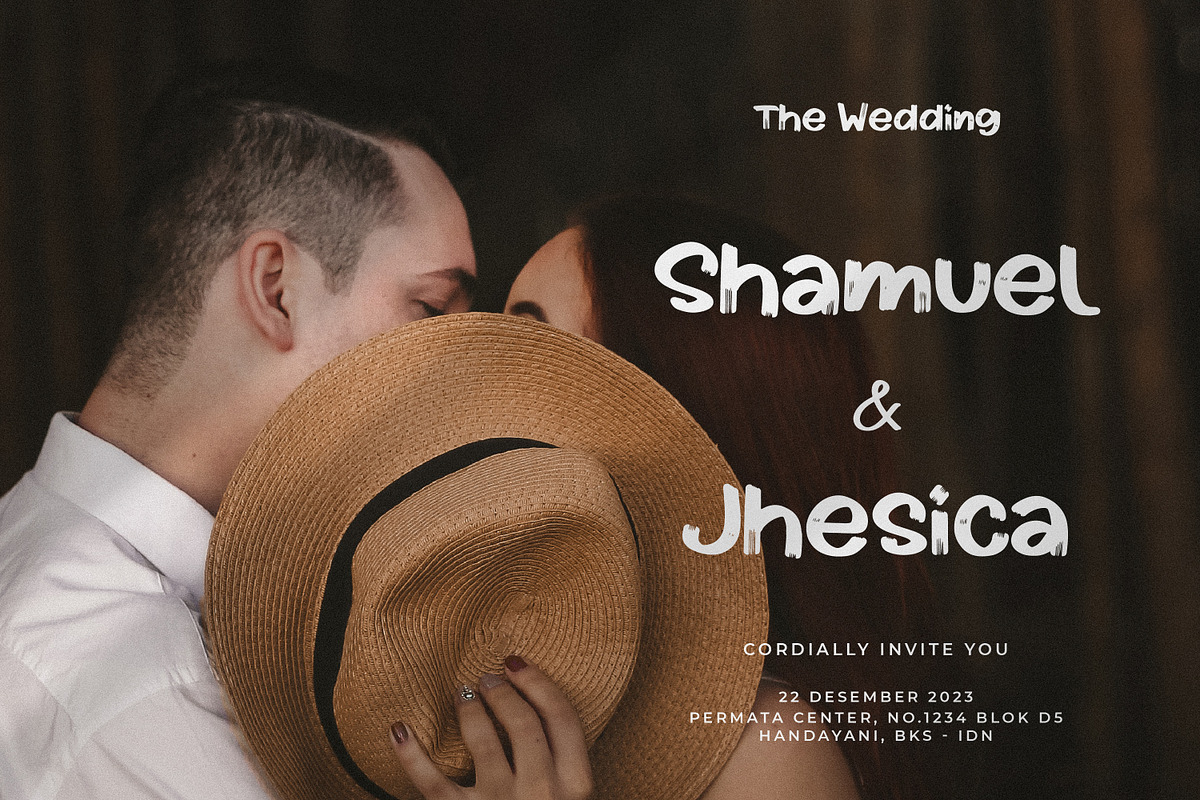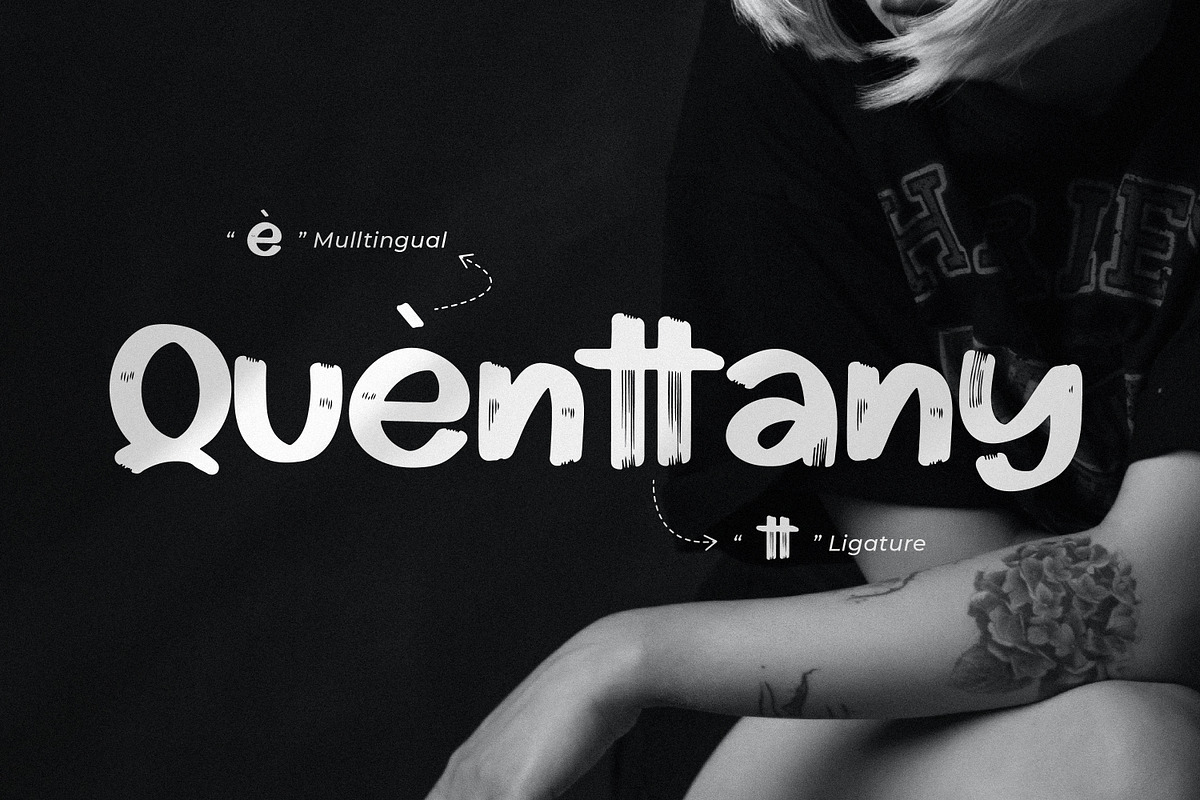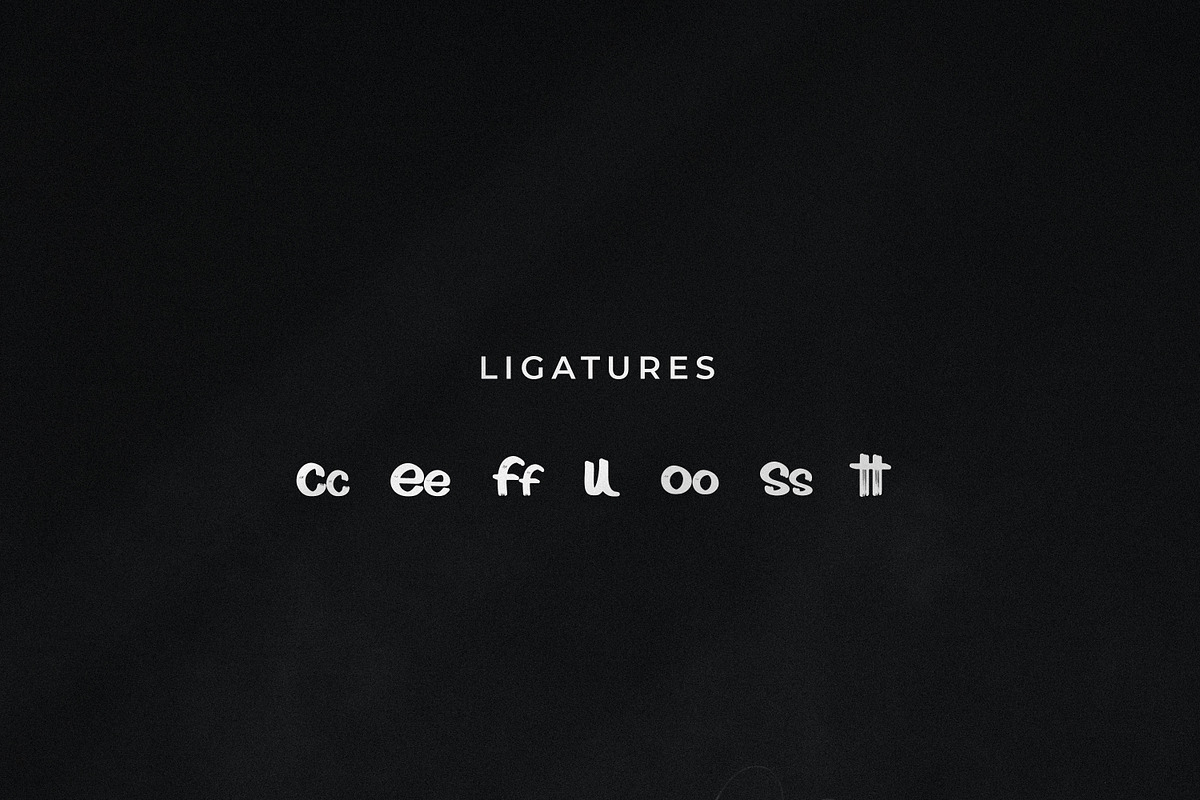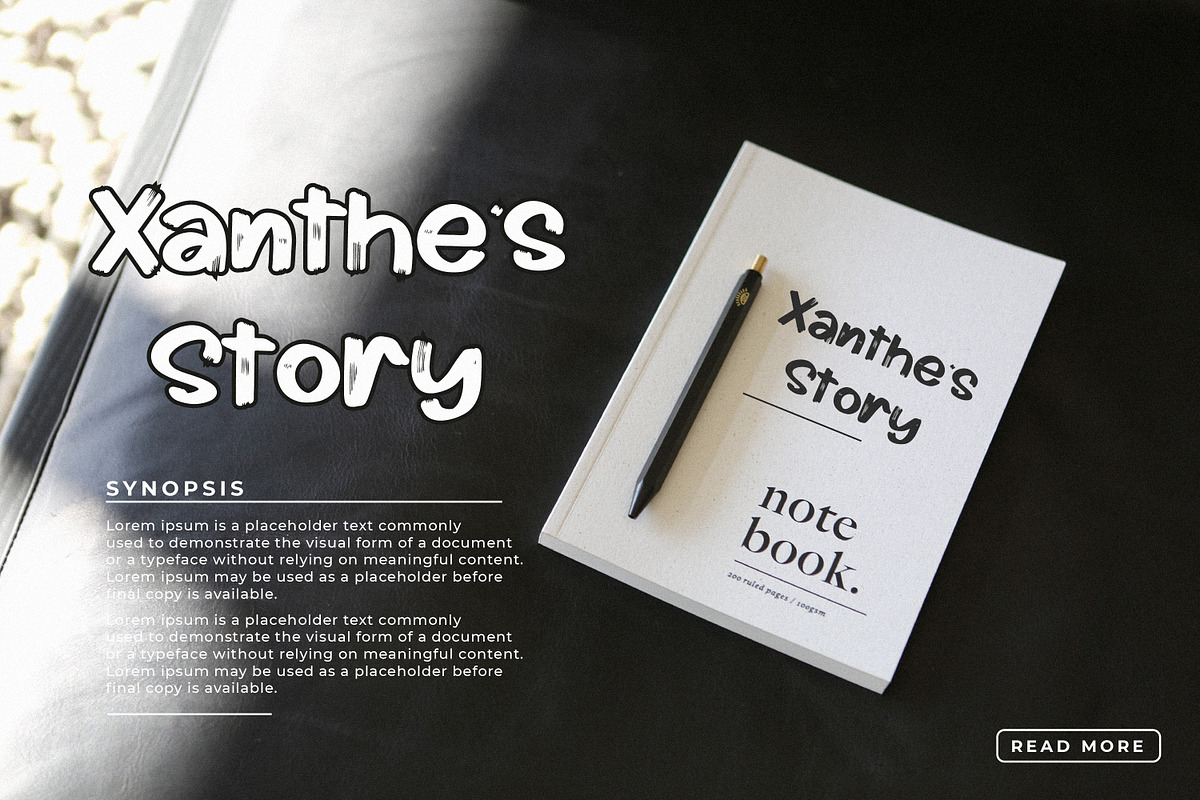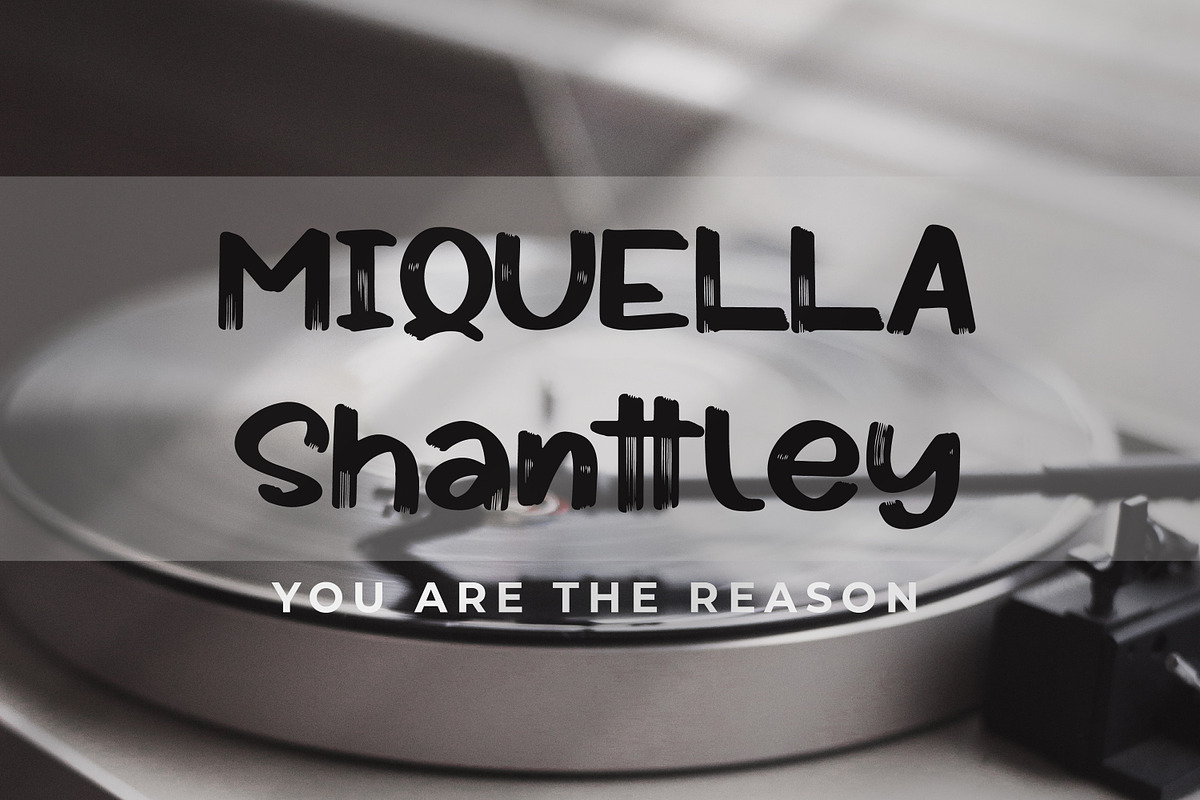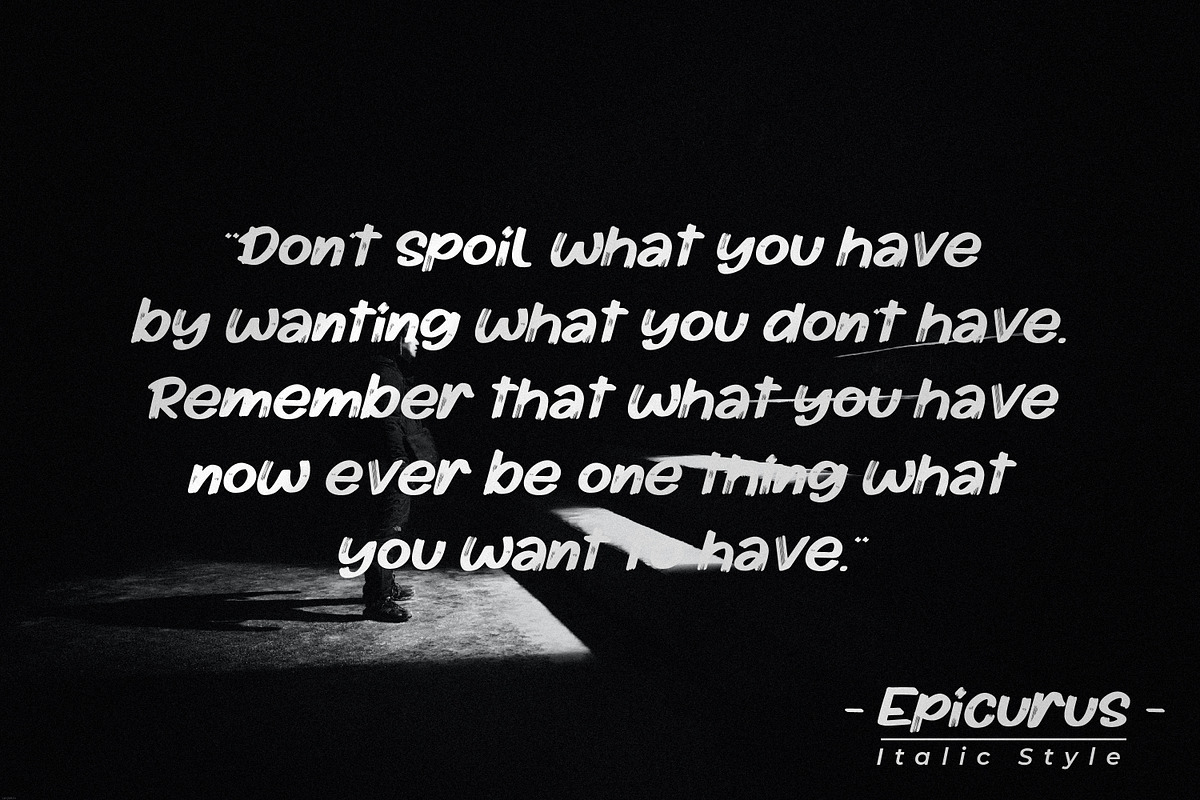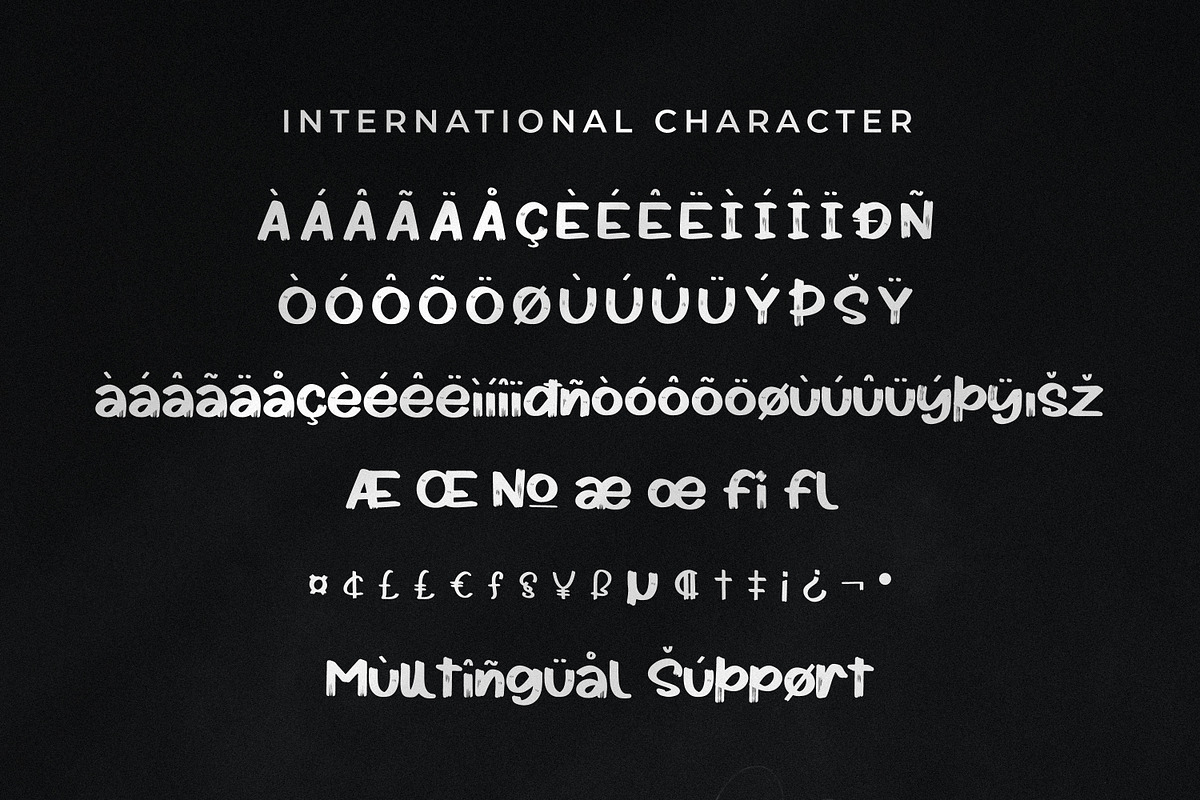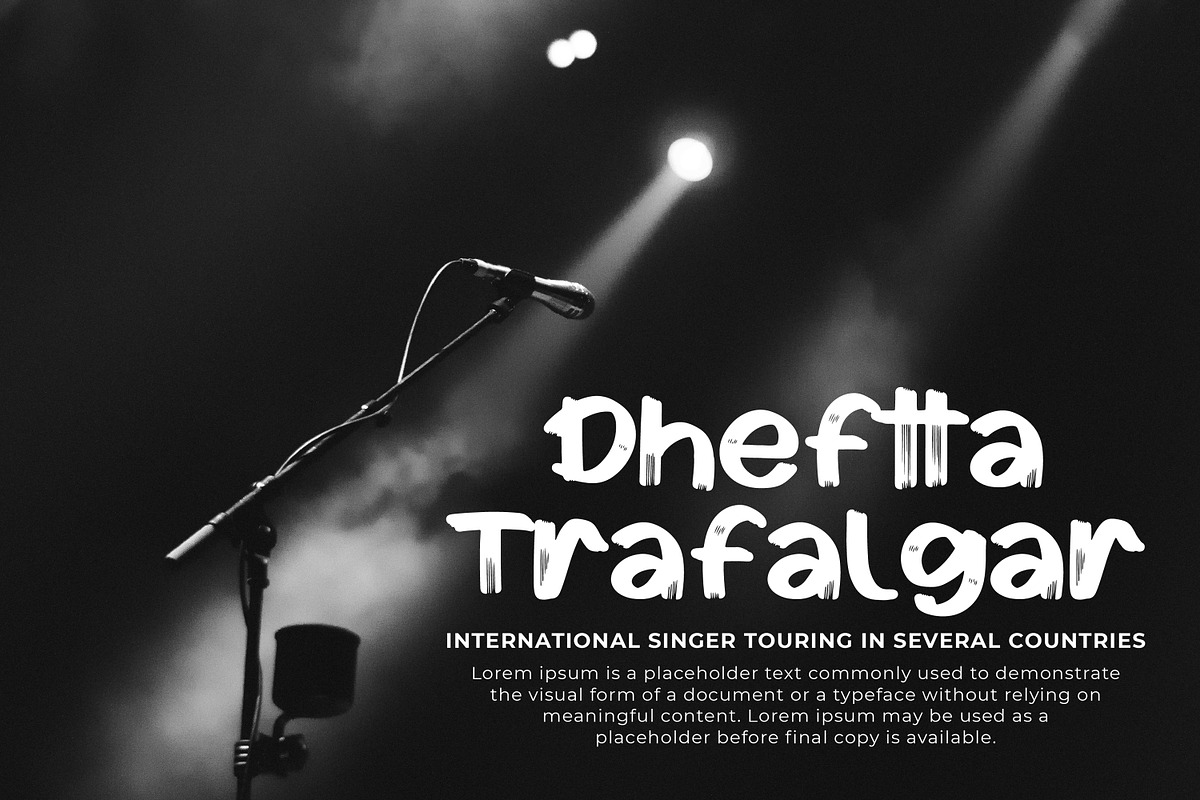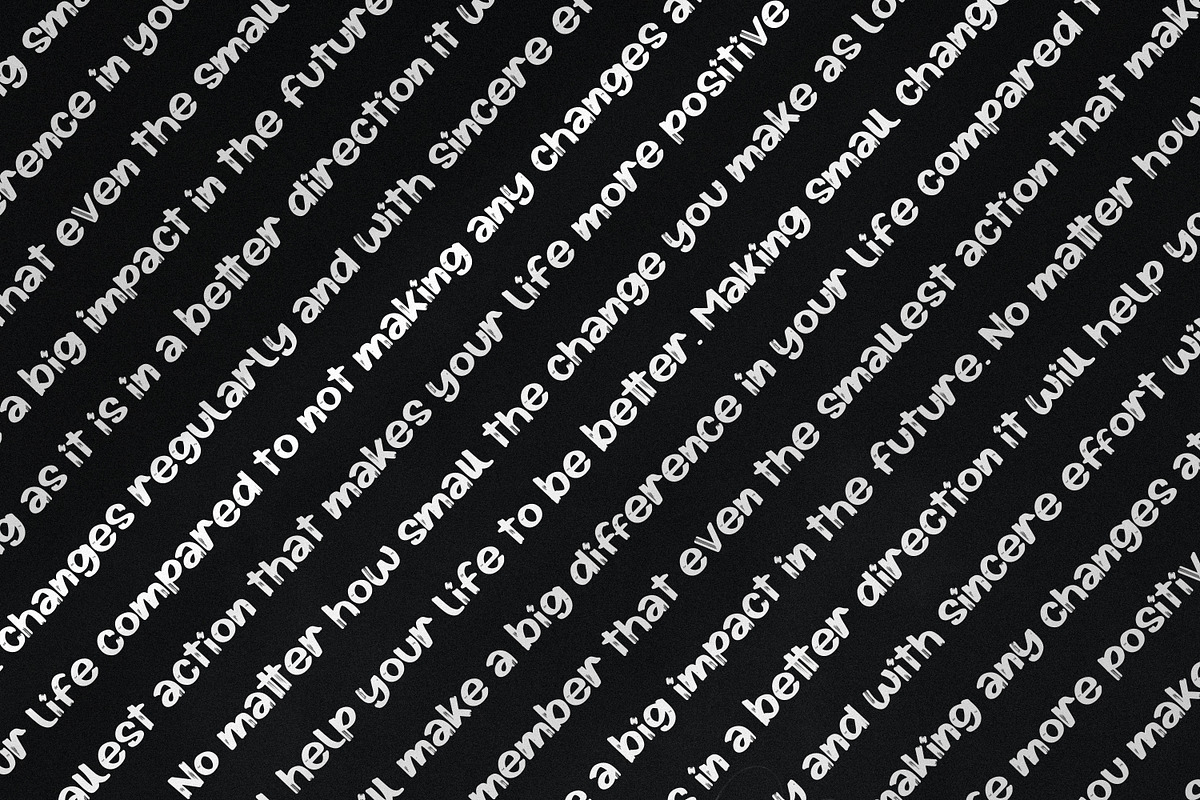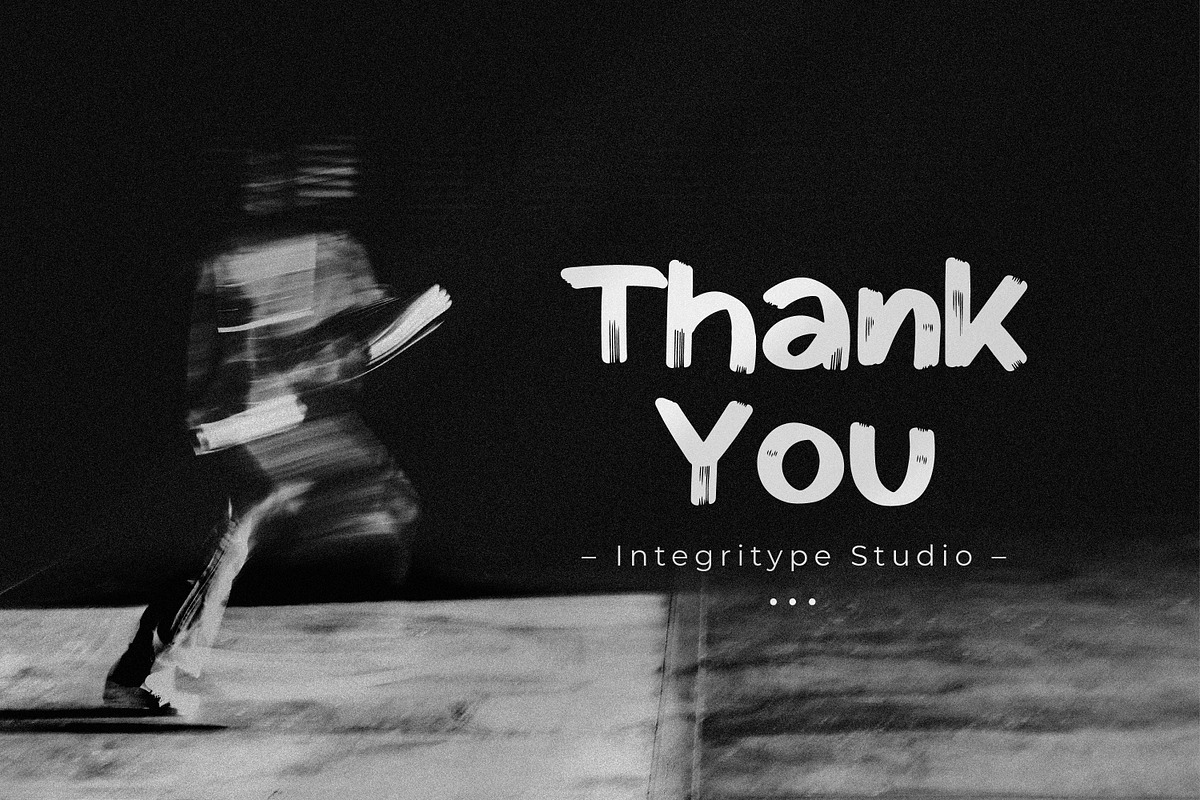
Regastta
Regastta - Handwritten Brush Font, from Integritype Studio, is a premium Handwritten Brush Font, suitable for any projects such as: logos, branding projects, homeware designs, product packaging, mugs, quotes, posters, shopping bags, t-shirts, book covers, name card, invitation cards, greeting cards, label, photography, watermark, special events, and all your other luxury projects that need a premium signature taste.
Ligature, Alternate & Swashes